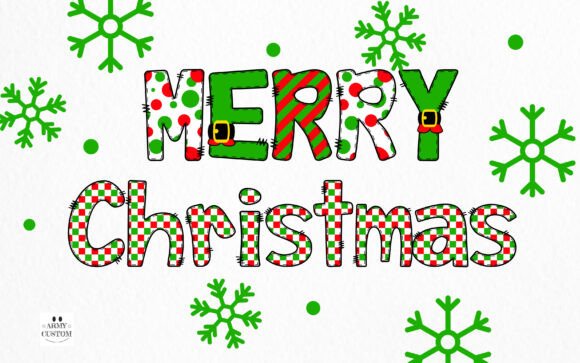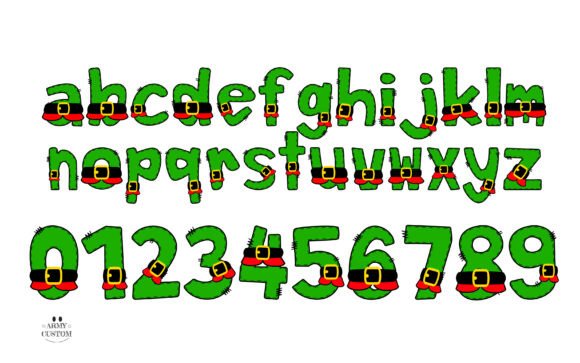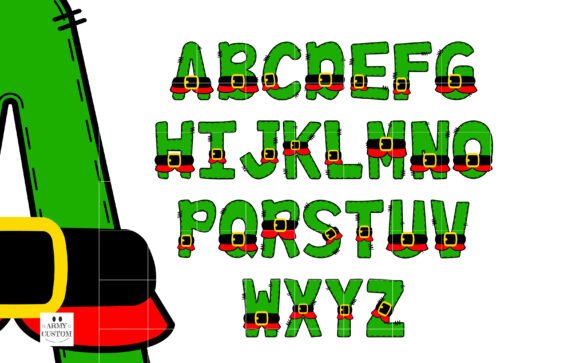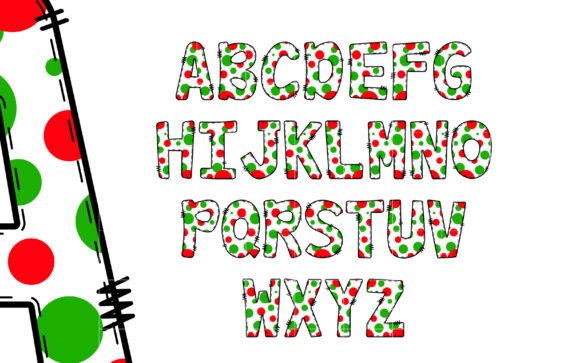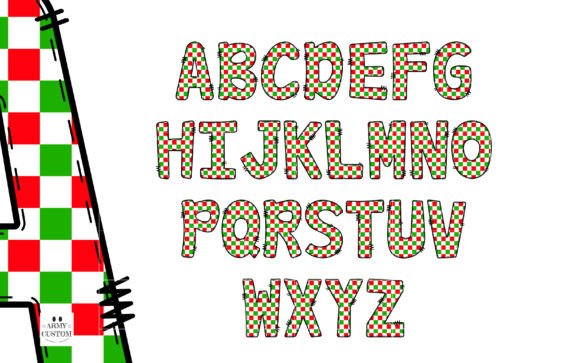
Introducing the Christmas Bundle Font: A Whimsical Addition to Your Holiday Design Toolkit
Are you looking for a font that captures the essence of the holiday season? Look no further than the Christmas Bundle Font, a playful and vibrant color font that’s sure to add a dash of merriment to any design project. Imbued with a sense of whimsy, this font is inspired by the adorable antics of Santa’s helpers, making it an ideal choice for creating holiday decorations, greeting cards, and other festive designs.
A Font that’s Full of Cheer
The Christmas Bundle Font, also known as the Christmas Elf Bundle Font, is a jovial font that’s designed to bring joy and festivity to your designs. Its unique style is reminiscent of the magic and wonder of the holiday season, making it perfect for designers and crafters who want to create vibrant and eye-catching projects. Whether you’re creating holiday decorations, gift tags, or social media graphics, this font is sure to add a touch of whimsy and fun to your designs.
What Makes this Font So Special?
So, what sets the Christmas Bundle Font apart from other holiday fonts? For starters, its unique and playful style is sure to capture the essence of the holiday season. The font’s design is inspired by the adorable antics of Santa’s helpers, making it a fun and festive addition to any design project. Additionally, the font’s color capabilities make it perfect for designers who want to add an extra touch of vibrancy to their projects.
Ideas for Using the Christmas Bundle Font
So, how can you use the Christmas Bundle Font in your designs? Here are a few ideas to get you started:
- Create holiday decorations, such as gift tags, garlands, and banners
- Design festive greeting cards and invitations
- Add a touch of whimsy to your social media graphics and holiday-themed posts
- Create custom holiday-themed gifts, such as mugs, t-shirts, and tote bags
- Make holiday-themed crafts, such as paper ornaments and gift boxes